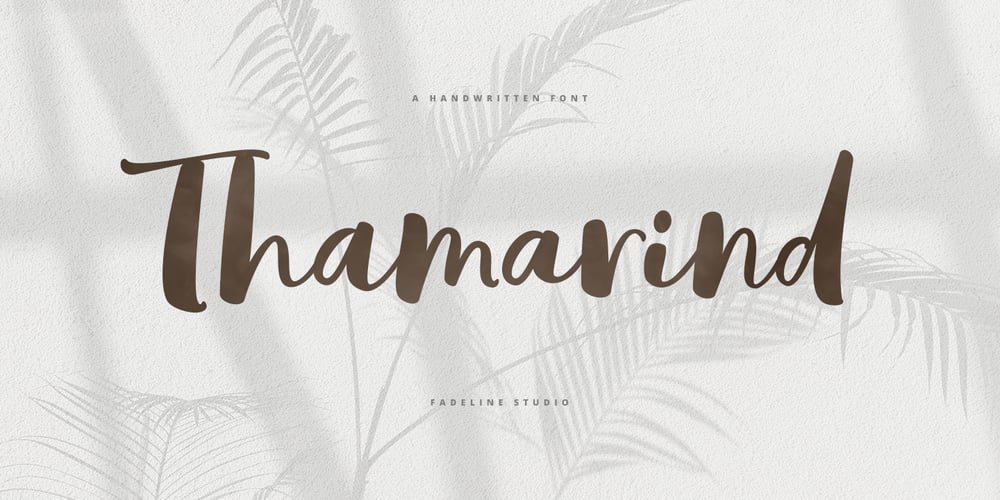
Thamarind Font Family was designed by Juni Fadil Putra and published by FadeLine Studio. Thamarind contains 1 styles and family package options. Thamarind is a new fun and unique new handwritten script font. This font adopts a bold, cute, firm, and trendy style. Very suitable to meet your various design needs that are trending now.With a style like this, this font will be suitable in use for comics, logo’s, branding projects, homeware designs, product packaging, mugs, quotes, posters, shopping bags, logo’s, t-shirts, book covers, name card, invitation cards, greeting cards, and all your other lovely projects.